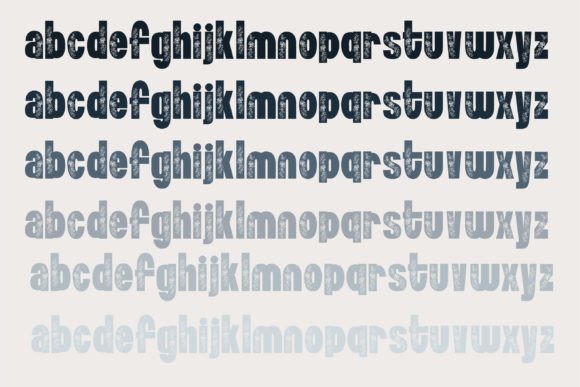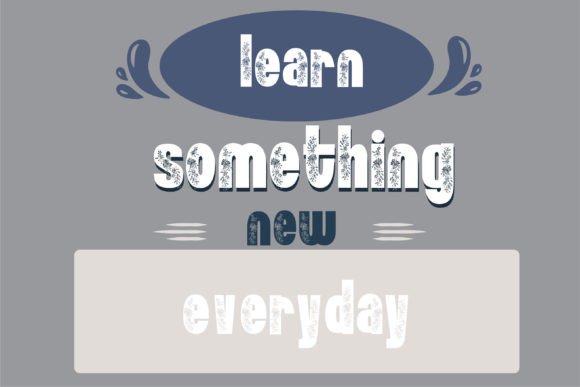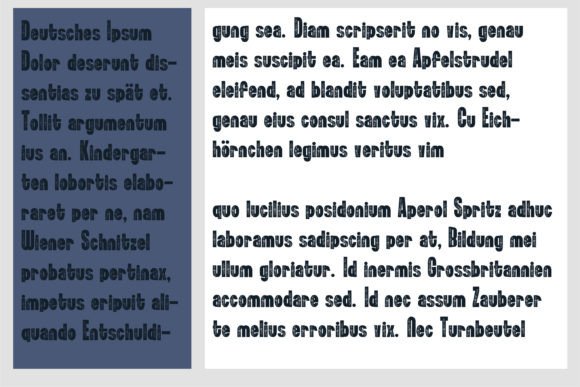
Introduction to Simple Spring Font
As a designer, there’s nothing quite like the thrill of discovering a new font that sparks your creativity and elevates your work to the next level. I still remember the moment I stumbled upon the Simple Spring Font – a bold sans serif font that bursts with a playful floral spray. It was love at first sight, and I knew I had to share it with the world.
The Simple Spring Font is more than just a pretty face; it’s a valuable design resource that can add a touch of whimsy and sophistication to your creative projects. With its high-quality design and transparent background, it’s perfect for designers looking to add a pop of color and personality to their work. And the best part? It’s available for free download, making it an accessible addition to any design arsenal.
Key Features of Simple Spring Font
- Unique characteristics include a clean and minimalist aesthetic, making it ideal for modern designs and branding.
Honest Review: Simple Spring Font
I recently stumbled upon the Simple Spring Font, and I must say it’s been a delightful addition to my design resources. This free download has been a game-changer for my creative projects, providing a fresh and elegant look that’s perfect for any spring-themed design.
- ✨ High-quality design: The Simple Spring Font boasts a crisp and clean design that’s sure to elevate any project.
- ✨ Transparent background: The font’s transparent background makes it easy to layer over any image or design, giving you endless creative possibilities.
- ✨ Easy to use: The font is incredibly easy to use, even for designers with limited experience.
- ⚠️ Limited font styles: While the Simple Spring Font is a great addition to any design, it’s limited to a single style, which may not be suitable for more complex projects.
- ⚠️ Not suitable for large-scale projects: While the font is perfect for smaller projects, it may not be the best choice for large-scale designs that require multiple font styles.
Overall, I’m thoroughly impressed with the Simple Spring Font. Its high-quality design, transparent background, and ease of use make it a valuable addition to any designer’s toolkit. If you’re looking for a fresh and elegant font for your spring-themed project, I highly recommend giving it a try!
Tips for Getting the Most Out of the Simple Spring Font
Here are some tips to help you get the most out of the Simple Spring Font:
- Use the font in combination with other design elements to create a visually appealing design.
- Use the font in a variety of design contexts, such as logos, headings, and body text.
The Simple Spring Font is commonly used in:
- Logos and branding materials.
- Headings and titles in publications and websites.
- Body text in creative projects and marketing materials.